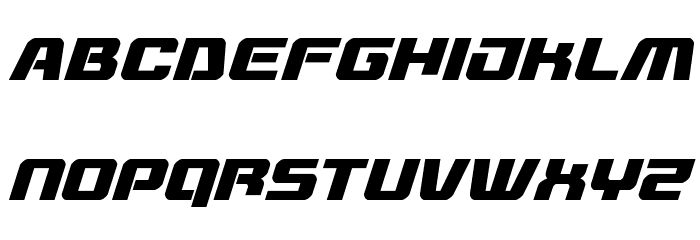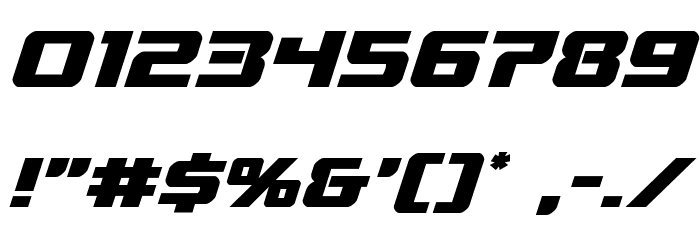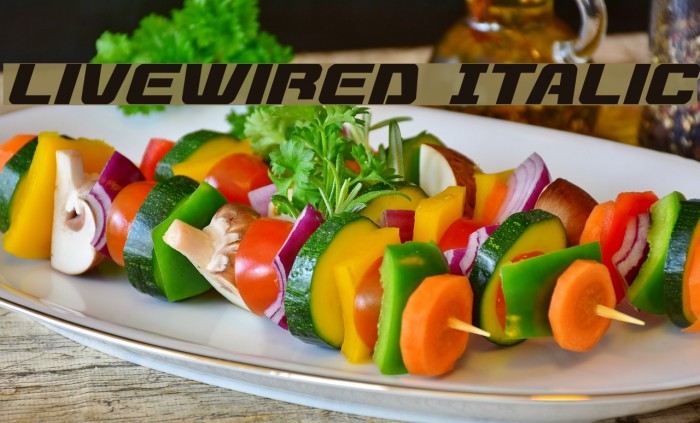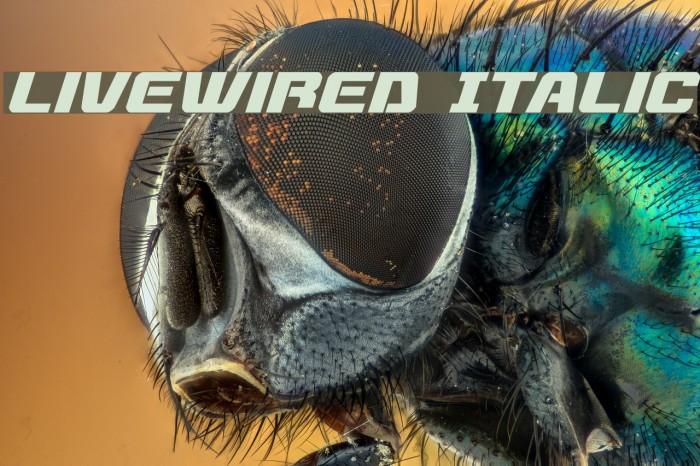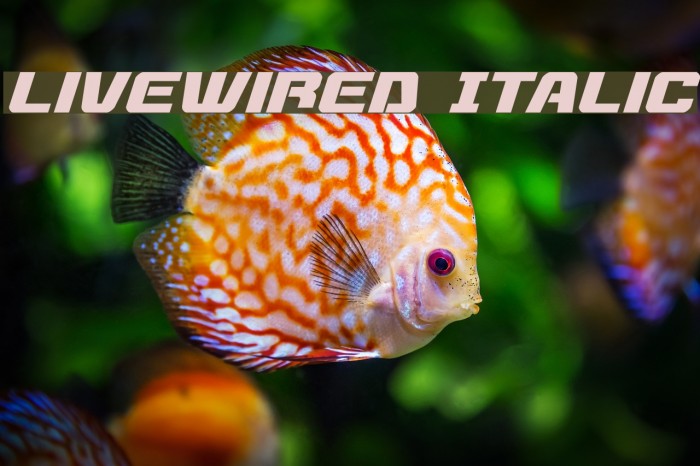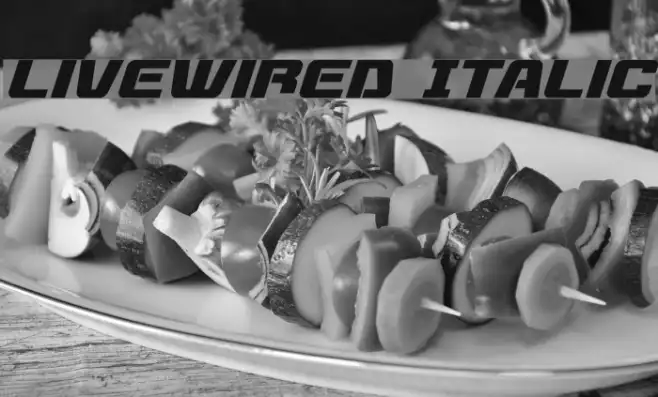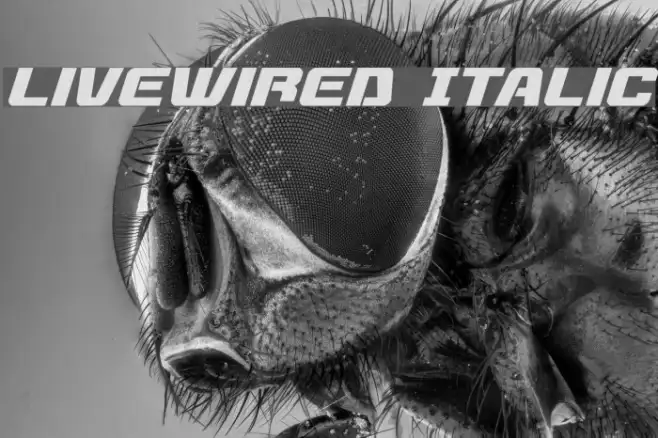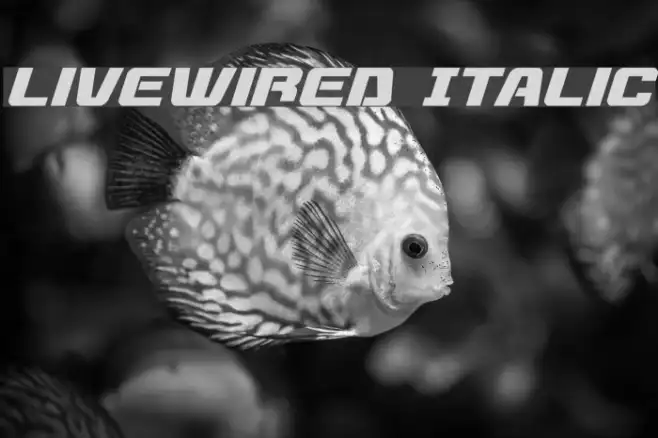
Livewired Italic Font
This font features a bold and dynamic style with a futuristic and sporty aesthetic. The characters are slanted, giving an italicized appearance that enhances its energetic and forward-moving feel. The strokes are thick and uniform, contributing to a strong visual impact. The design includes sharp angles and geometric shapes, which add to its modern and edgy look. The uppercase and lowercase letters maintain a consistent style, while the numerals and special characters complement the overall design. This font is ideal for projects that require a bold and attention-grabbing typeface.
A bold, italicized font with a futuristic and sporty design.
- Proposed Projects: Ideal for sports branding, technology logos, video game titles, and dynamic advertising campaigns.